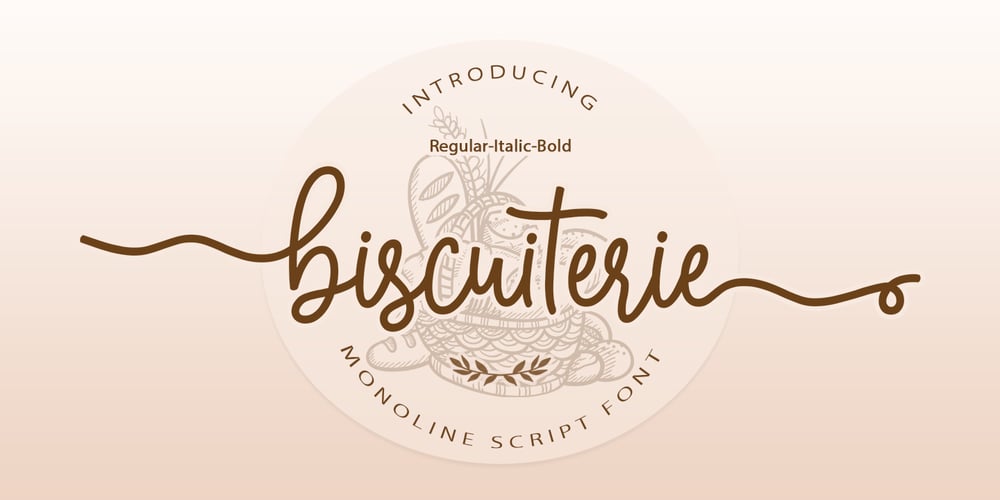
Biscuiterie Monoline Script Font Family was designed by Muammar Kadafi and published by Attract Studio. Biscuiterie Monoline Script contains 3 styles and family package options. Biscuiterie is a Monoline Script Typeface, a classic and fun vintage script. Combination with classic & modern style fonts. This font can be used easily, even in mixing and matching with other fonts. So that it can provide alternatives and new sensations for designers or craftsmen, in working on various projects. This font you can use for various purposes. Such as logos, wedding invitations, t-shirts, letterhead, signage, labels, news, posters, badges, etc.Barlington comes with uppercase letters, lowercase letters, numbers, punctuation, and so many variations on each character including OpenType alternatives, and multilingual support.Biscuiterie features OpenType stylistic alternates, ligatures and International support for most Western Languages is included. To enable the OpenType Stylistic alternates, you need a program that supports OpenType features such as Adobe Illustrator CS, Adobe Indesign & CorelDraw X6-X7, Microsoft Word 2010 or later versions.How to access all alternative characters using Adobe Illustrator:https://www.youtube.com/watch?v=XzwjMkbB-wQBiscuiterie is coded with PUA Unicode, which allows full access to all the extra characters without having special designing software. Mac users can use Font Book , and Windows users can use Character Map to view and copy any of the extra characters to paste into your favourite text editor/app.How to access all alternative characters, using Windows Character Map with Photoshop:https://www.youtube.com/watch?v=Go9vacoYmBwIf you have any question, don’t hesitate to contact me.Thanks so much for looking and Enjoy it!